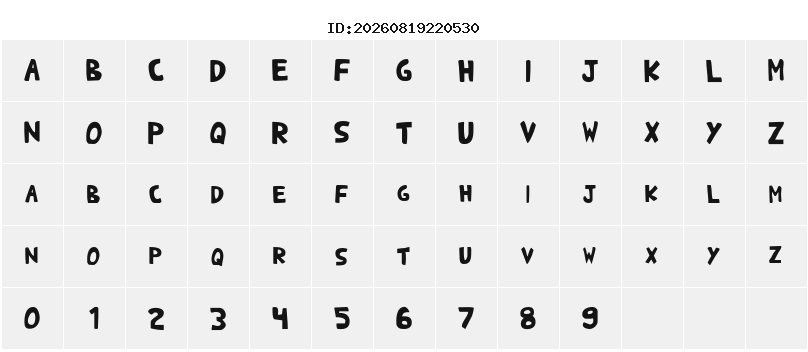
About Shark Heavy ABC.ttf
Shark Heavy ABC.ttf is a modern, elegant sans-serif font designed for ultimate readability and visual harmony. Perfect for branding, headlines, web design, and print materials.